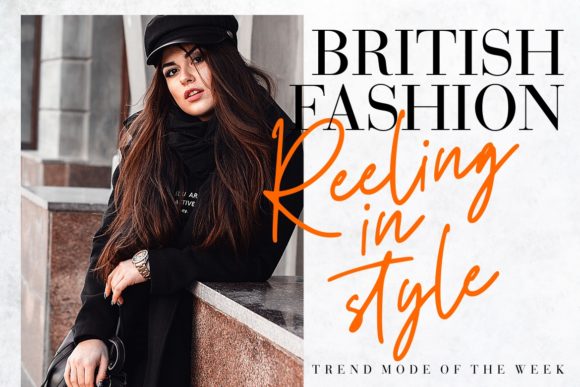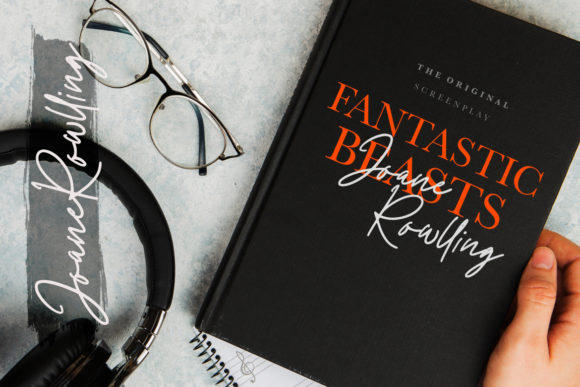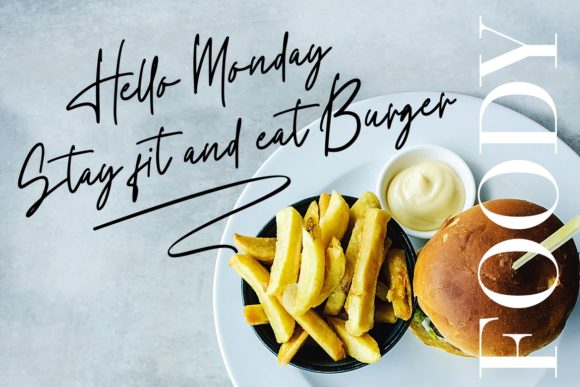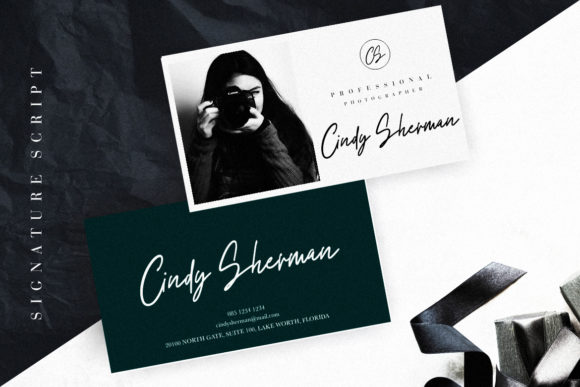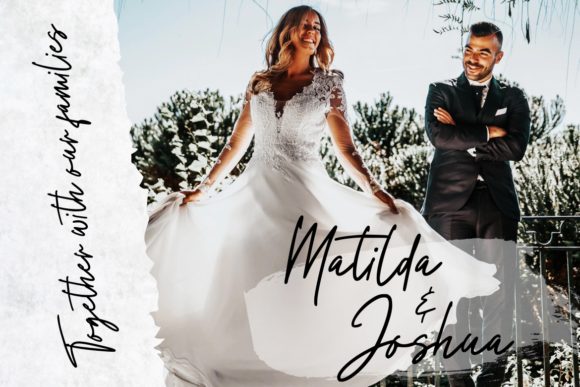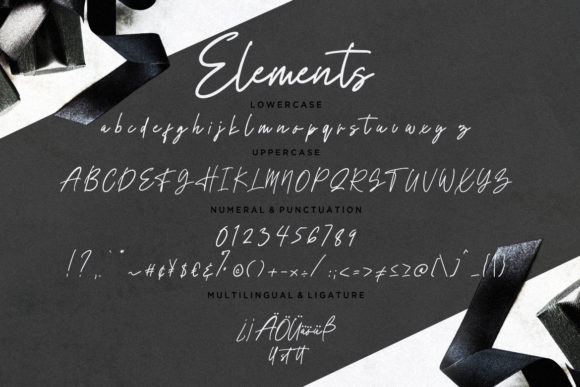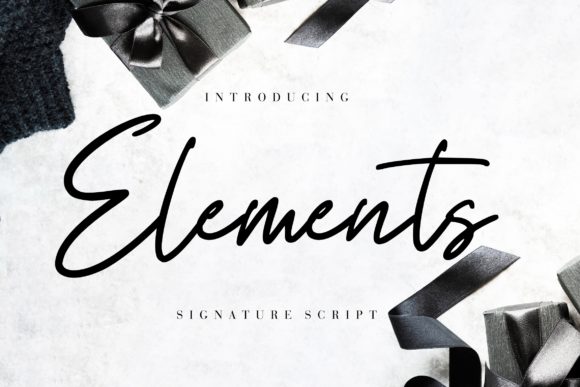
Introducing Elements Font: A Sweet and Bold Script for Modern Design
Are you a designer or crafter looking for a unique and eye-catching font to elevate your creative projects? Look no further than Elements Font, an incredibly sweet and bold script with a modern approach to lettering. In this article, we’ll dive into the features and benefits of Elements Font, and explore how it can add a touch of sophistication and style to your designs.
A Modern Approach to Lettering
Elements Font is a script font that takes a fresh and modern approach to lettering. With its bold and swooping lines, it’s perfect for creating eye-catching headlines, titles, and quotes. The font features a unique blend of classic script elements with a modern twist, making it perfect for designers and crafters who want to add a touch of elegance and sophistication to their work.
Key Features of Elements Font
- Bold and Sweet Design: Elements Font features a bold and sweet design that’s perfect for creating eye-catching headlines and titles.
- Modern Approach to Lettering: The font takes a fresh and modern approach to lettering, making it perfect for designers and crafters who want to add a touch of elegance and sophistication to their work.
- Highly Readable: Despite its bold design, Elements Font is highly readable, making it perfect for use in a variety of creative projects, from logos and branding to quotes and phrases.
- Multilingual Support: Elements Font supports multiple languages, making it a great choice for designers and crafters who work with international clients or want to create multilingual content.
Use Cases for Elements Font
Elements Font is a versatile font that can be used in a variety of creative projects, including:
- Logos and Branding: Use Elements Font to create bold and eye-catching logos and branding materials that make a lasting impression.
- Quotes and Phrases: Add a touch of elegance and sophistication to your quotes and phrases with Elements Font.
- Headlines and Titles: Use Elements Font to create bold and eye-catching headlines and titles that grab attention.
- Social Media Graphics: Add a touch of style and sophistication to your social media graphics with Elements Font.
- Invitations and Stationery: Use Elements Font to create beautiful and elegant invitations and stationery that make a lasting impression.
Tips for Using Elements Font
Here are a few tips for using Elements Font in your creative projects:
- Experiment with Font Sizes: Elements Font looks great in a variety of font sizes, from large and bold to small and elegant.
- Play with Color: Use Elements Font with a range of colors to add visual interest and create a unique look.
- Pair with Other Fonts: Experiment with pairing Elements Font with other fonts to create a unique and eye-catching look.
- Use in Combination with Images: Use Elements Font in combination with images to add a touch of elegance and sophistication to your designs.
Elements Font is an incredibly sweet and bold script with a modern approach to lettering. With its bold and swooping lines, highly readable design, and multilingual support, it’s perfect for designers and crafters who want to add a touch of elegance and sophistication to their creative projects. Whether you’re creating logos and branding, quotes and phrases, or social media graphics, Elements Font is a versatile and stylish choice that’s sure to impress.